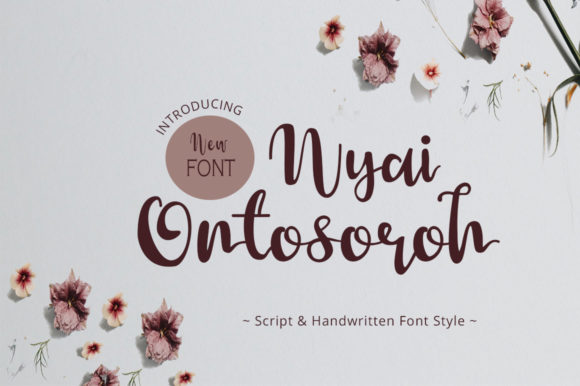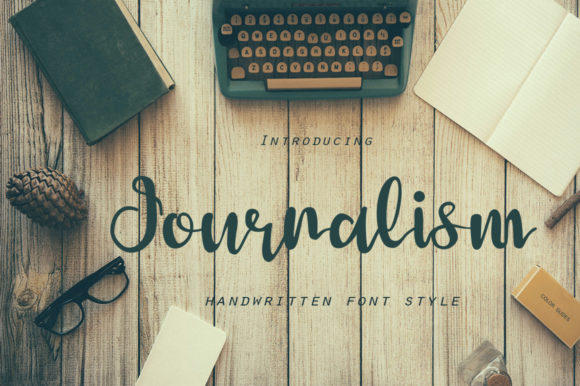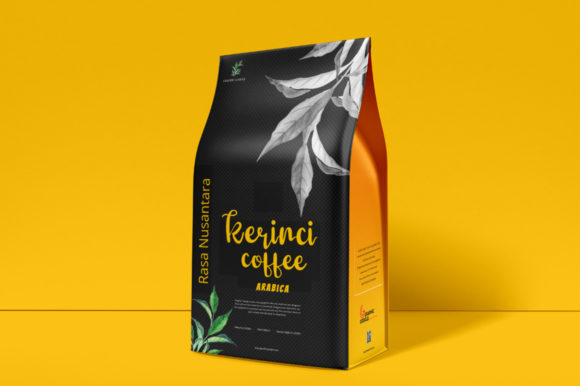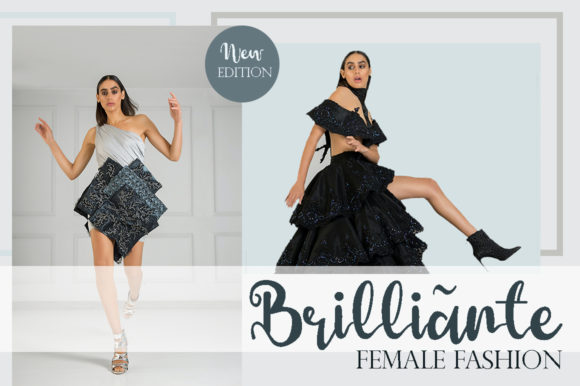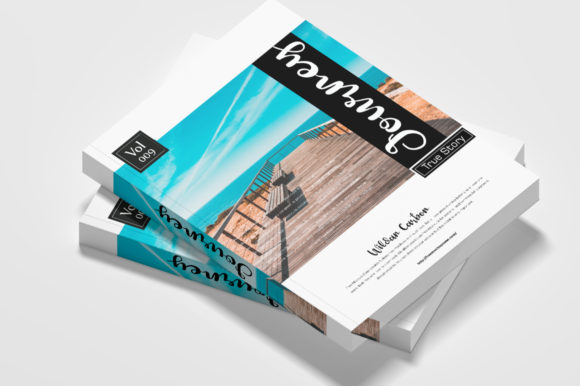
About Nyai Ontosoroh Font
Nyai Ontosoroh is a beautiful handwritten font. Its casual charm makes it appear wonderfully down-to-earth, readable and, ultimately, incredibly versatile. Gratefully will look outstanding in any context, whether it’s being used on busy backgrounds or as a standalone headline!